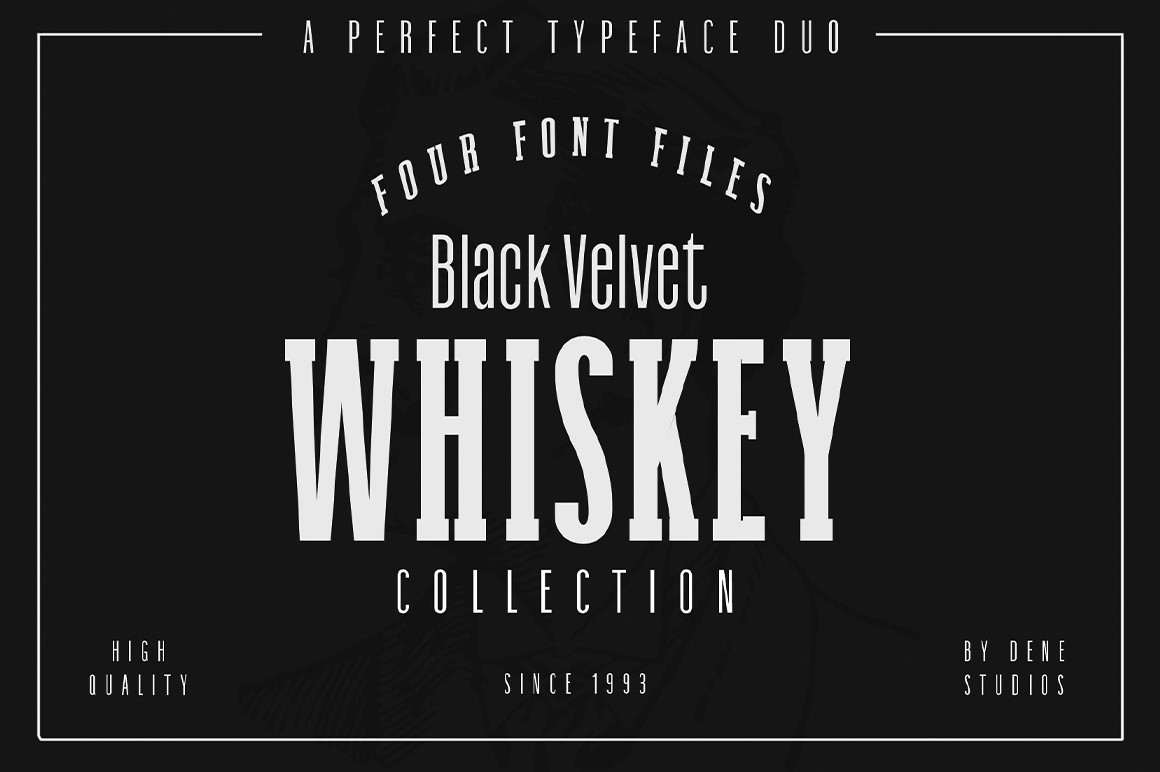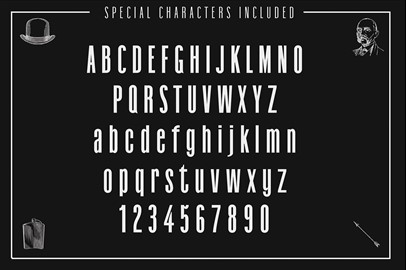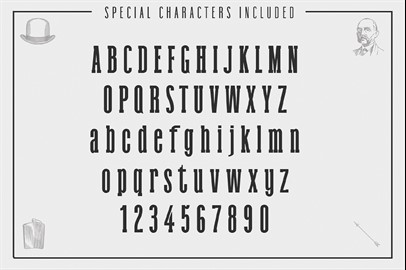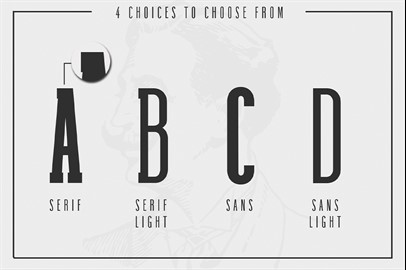
Black Velvet Typeface
These two typefaces are made for each other. They work together to give you that perfect combination for your latest project.
Black Velvet
is perfect for logos, signage, advertising, labels and more.